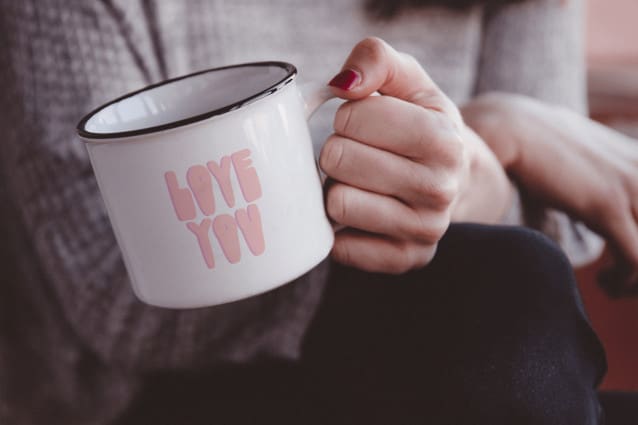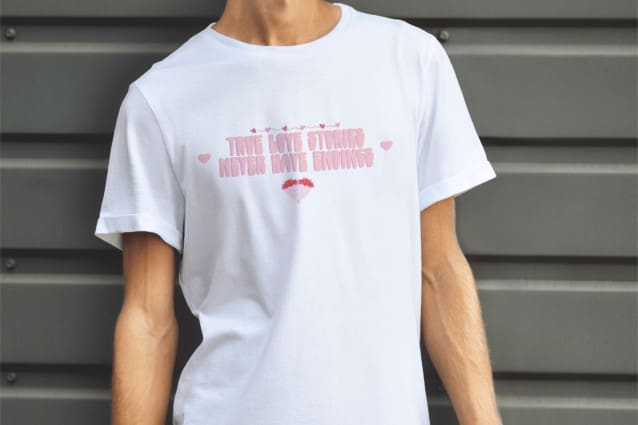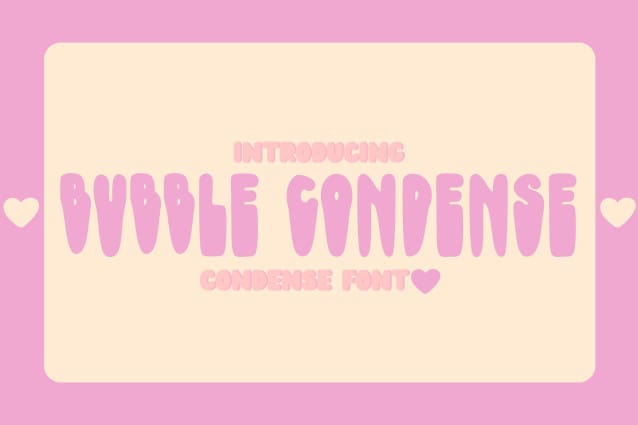
Bubble Condense Font
Bubble Condense Font – Playful Condensed Font is a charming and whimsical typeface designed to bring a soft and fun aesthetic to your projects. Perfect for Valentine’s Day, greeting cards, invitations, branding, social media graphics, and other creative designs, this font features a condensed bubble-style structure with a cute and friendly appeal. With its unique look, Bubble Condense adds a delightful and warm touch to any design.